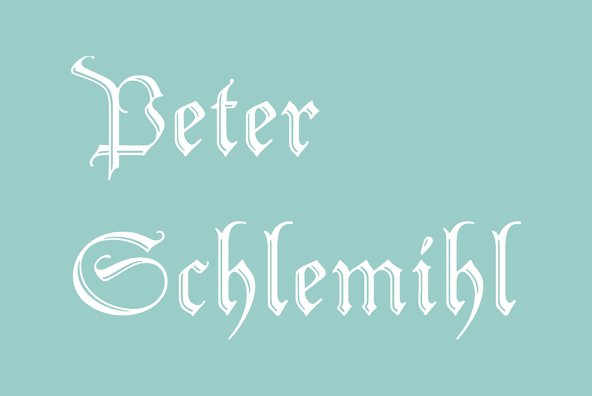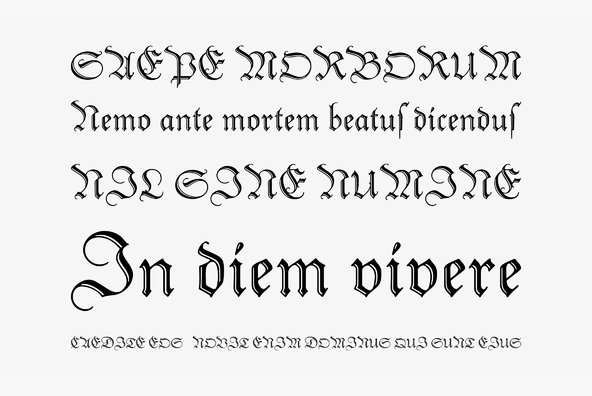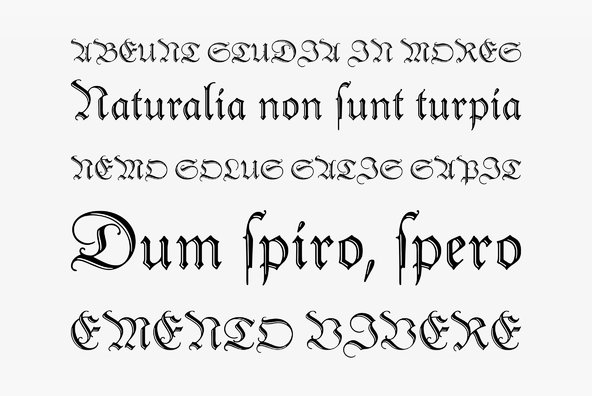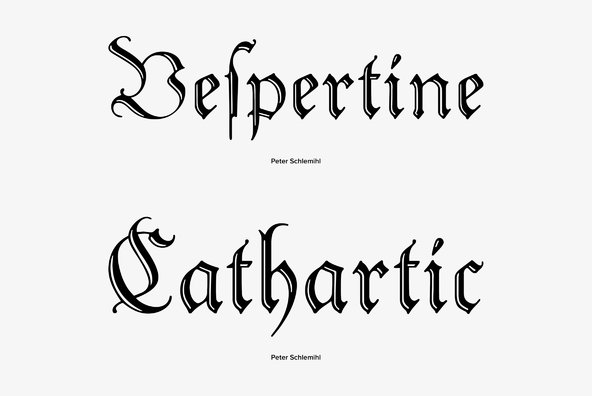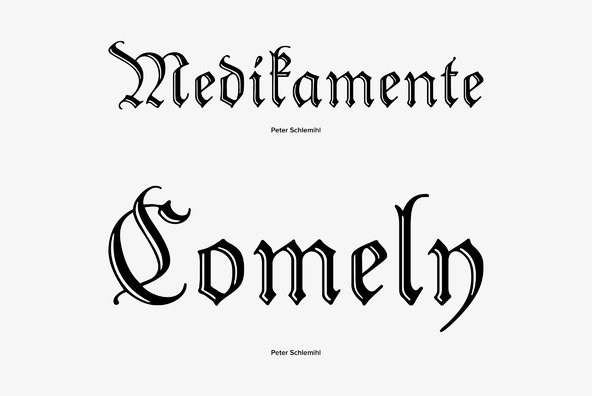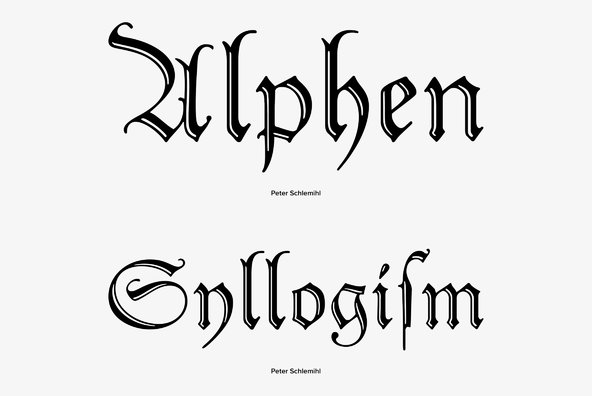
Adalbert von Chamissio wrote that wondrous story about the man who sold his shadow to the devil. Walter Thiemann recovered that shadow when he put a thin and a shadow line around his Tiemann Fraktur.
Adalbert von Chamissio wrote that wondrous story about the man who sold his shadow to the devil. Walter Thiemann recovered that shadow when he put a thin and a shadow line around his Tiemann Fraktur. It is an embellished and delightful typeface, this Peter Schlemihl. It is probably one of the most beautiful typefaces among the outline, Shadow and striped black letter fonts.